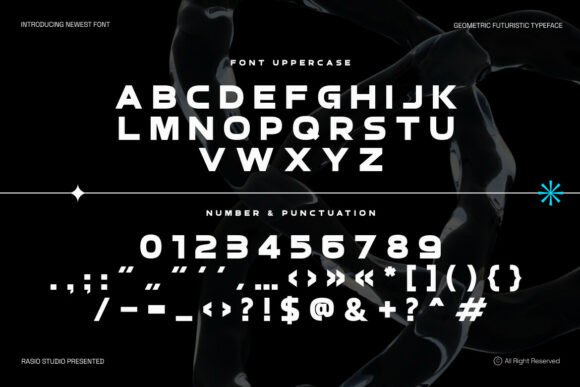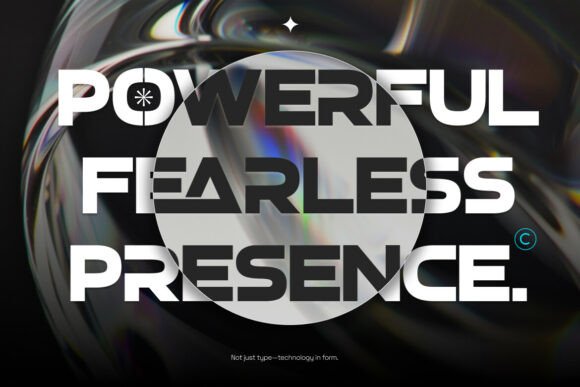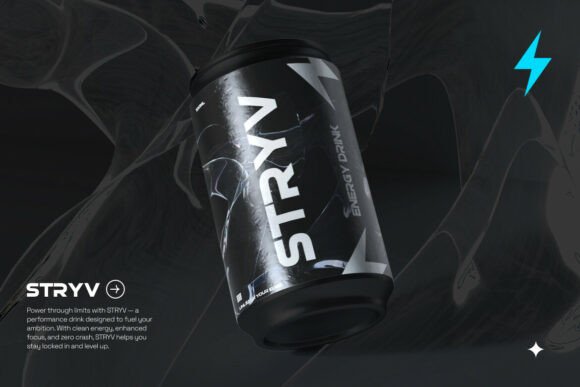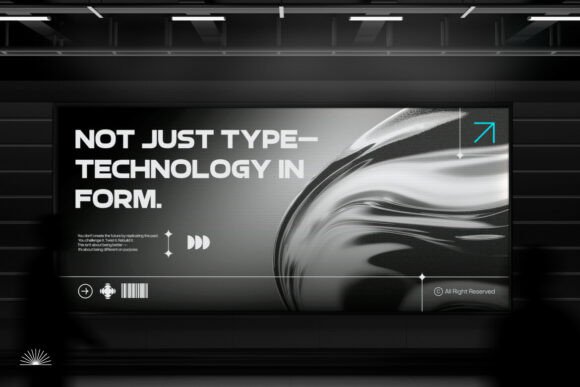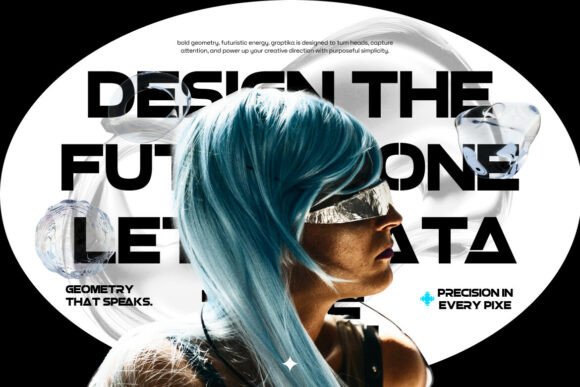
Introducing Groptika Font: The Ultimate Choice for Futuristic Designs
Are you looking for a font that screams futuristic, technological, and innovative? Look no further than Groptika, a bold geometric sans-serif display typeface that’s taking the design world by storm. With its clean structural forms, sharp angles, and precise line construction, Groptika delivers a powerful visual presence that’s perfect for e-sports branding, gaming interfaces, movie posters, and any project that requires a “cyberpunk” or aerospace aesthetic.
Design Characteristics of Groptika Font
Groptika’s distinctive letterforms feature angular cuts, balanced proportions, and modern detailing that evoke technology, innovation, and forward-thinking design. The font’s stencil-like gaps and sharp, aggressive angles give it a sense of speed and sci-fi mystery, making it the perfect choice for designers who want to create a bold and futuristic look.
One of the standout features of Groptika is its minimalist curves mixed with hard geometric breaks, which give the font a progressive look that feels ahead of its time. This unique combination of design elements makes Groptika a versatile font that can be used in a variety of contexts, from digital interfaces to print materials.
Perfect for Futuristic Designs
Groptika is specifically designed to evoke a sense of technology, innovation, and forward-thinking design. Its futuristic aesthetic makes it perfect for:
- E-sports branding: Give your team a bold and competitive edge with Groptika’s powerful and dynamic design.
- Gaming interfaces: Create immersive and engaging gaming experiences with Groptika’s sharp and futuristic aesthetic.
- Movie posters: Add a touch of sci-fi mystery and adventure to your movie posters with Groptika’s bold and eye-catching design.
- Cyberpunk and aerospace designs: Groptika’s stencil-like gaps and sharp angles make it perfect for designs that require a futuristic and high-tech look.
Tips for Using Groptika Font Effectively
To maximize the effectiveness of Groptika, use it sparingly as a hero font for headers and logos. Pair it with a simple, neutral sans-serif font for body text to create visual contrast and hierarchy. This will help draw attention to your key messages and create a clear visual flow.
When using Groptika, consider the following best practices:
- Use it for headlines and titles: Groptika’s bold and futuristic design makes it perfect for grabbing attention and creating a strong visual impact.
- Pair it with a neutral font: Balance out Groptika’s bold design with a simple and neutral font to create visual contrast and hierarchy.
- Experiment with different colors: Groptika’s stencil-like gaps and sharp angles make it perfect for designs that require a bold and futuristic look. Experiment with different colors to find the perfect combination for your design.
Groptika font is a powerful and versatile design tool that’s perfect for designers and crafters who want to create futuristic and innovative designs. With its bold geometric sans-serif design, sharp angles, and precise line construction, Groptika delivers a powerful visual presence that’s sure to grab attention. Whether you’re working on e-sports branding, gaming interfaces, movie posters, or any project that requires a “cyberpunk” or aerospace aesthetic, Groptika is the perfect choice.